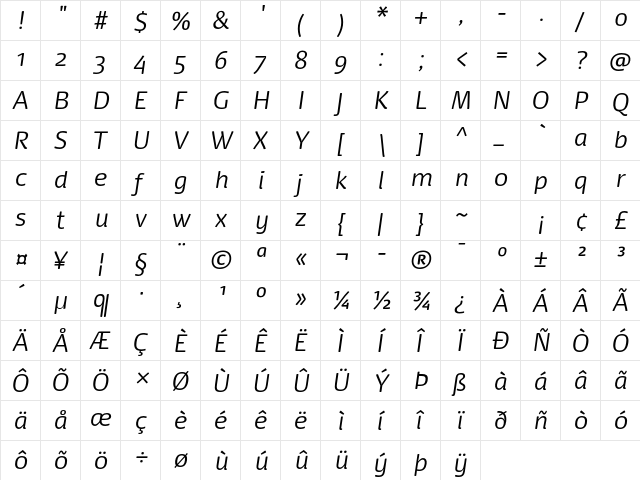
Dancer Pro Light Italic
| Foundry | Morten Rostgaard Olsen |
| Designer | Morten Rostgaard Olsen |
Design Context for Dancer Pro Typeface
Dancer Pro offers clean, dependable letterforms without strong stylistic allegiance, making it a practical choice for designers who need flexibility. The slanted form adds forward momentum and visual energy. The delicate stroke weight brings airiness and refinement to layouts.
Pro Tip: Use Dancer Pro for emphasis, pull quotes, and subheadings where its slanted energy can add rhythm to the layout.